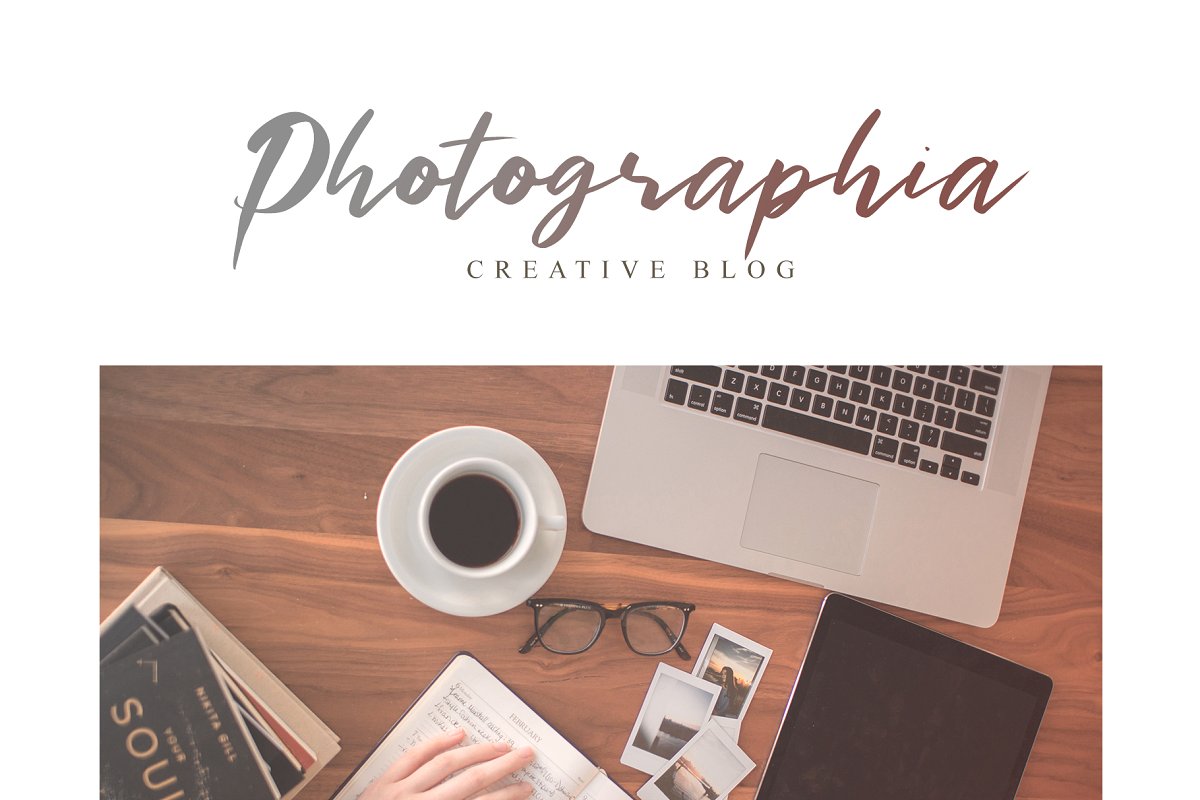
Bonjour Brush Font
Bonjour is a natural, simple and casual handwritten font. Good choice to use for blog headers, magazine, posters, social media posts, quotes, branding, flyers, signatures, letters, and much more.